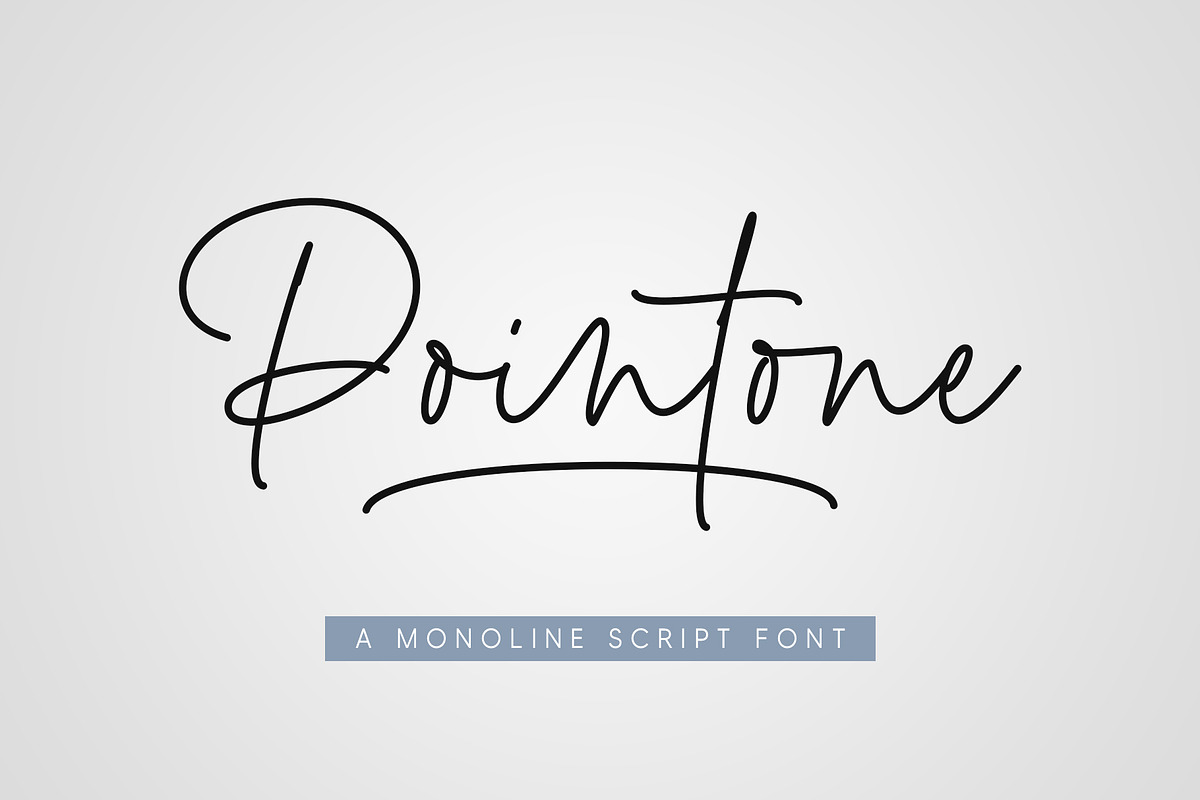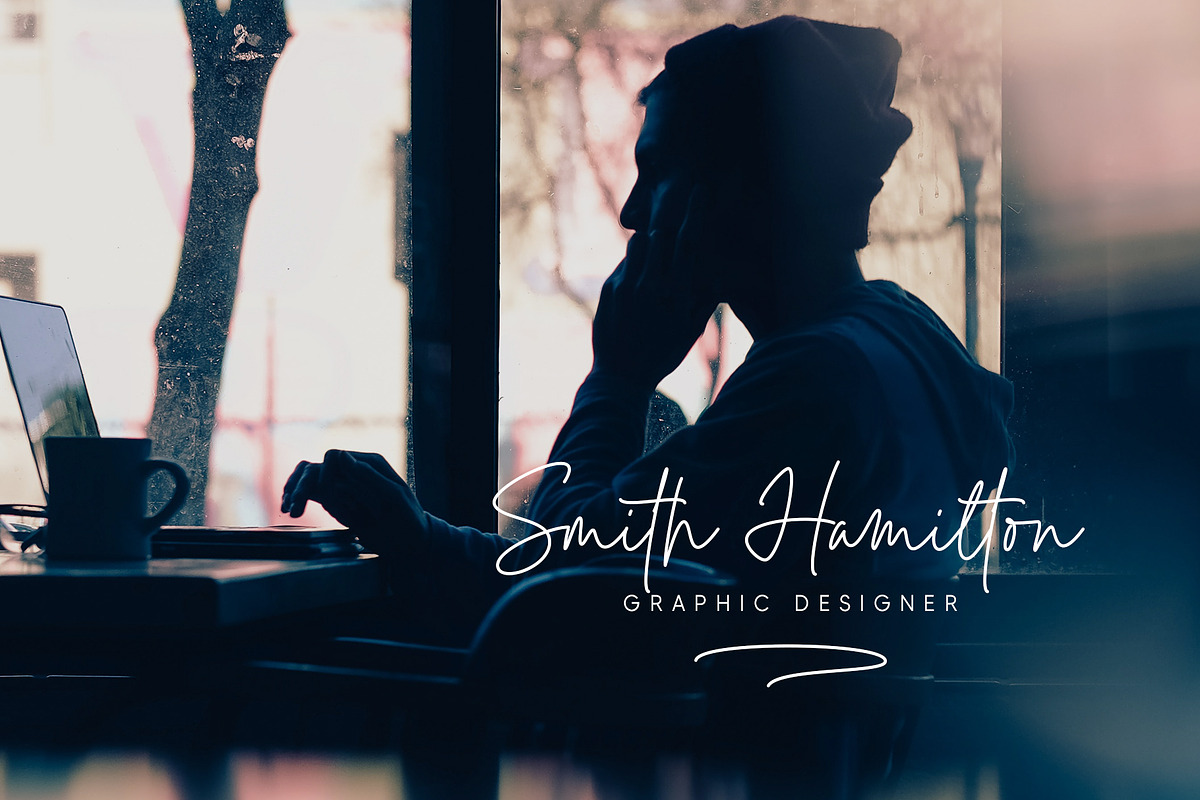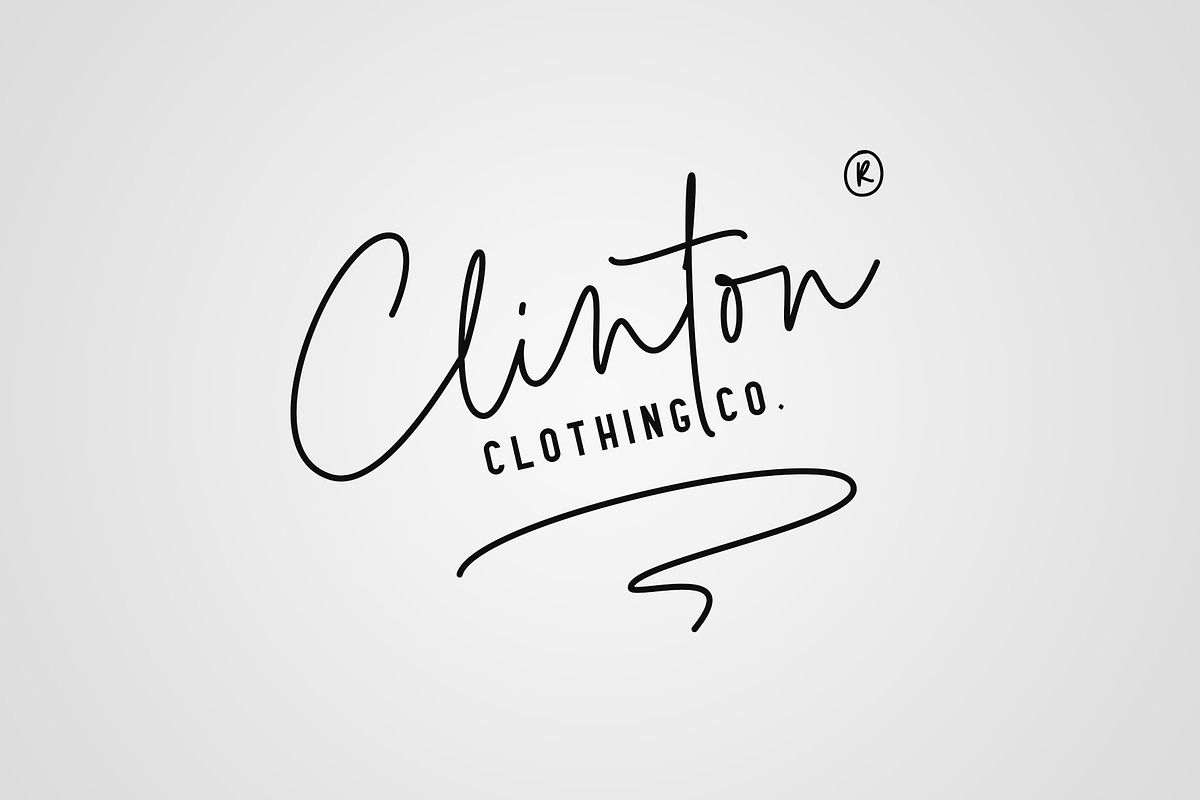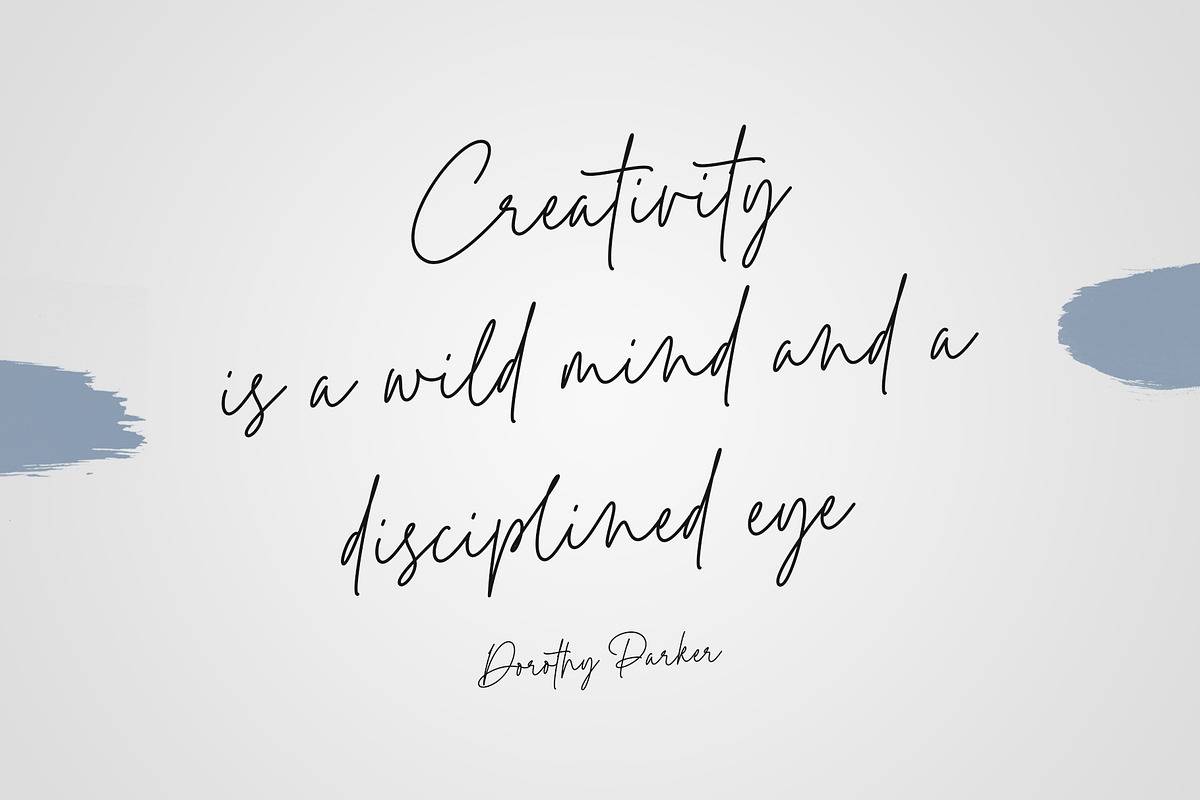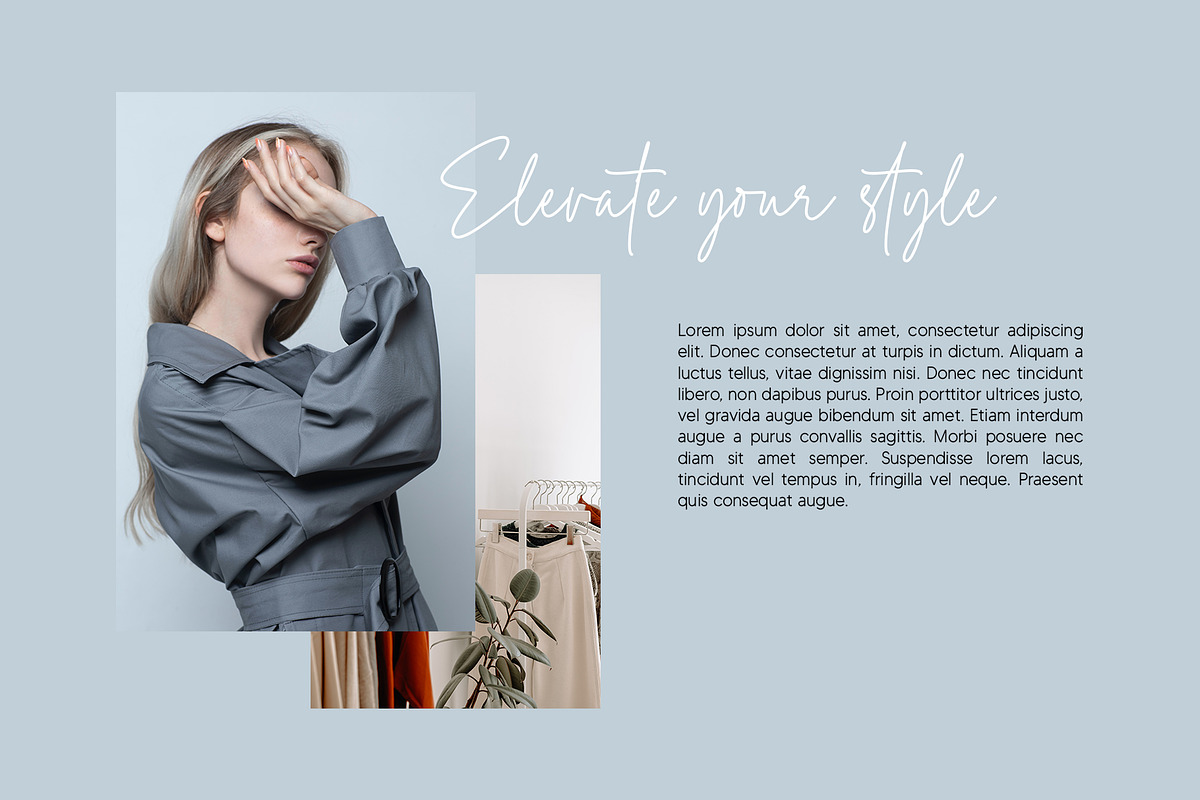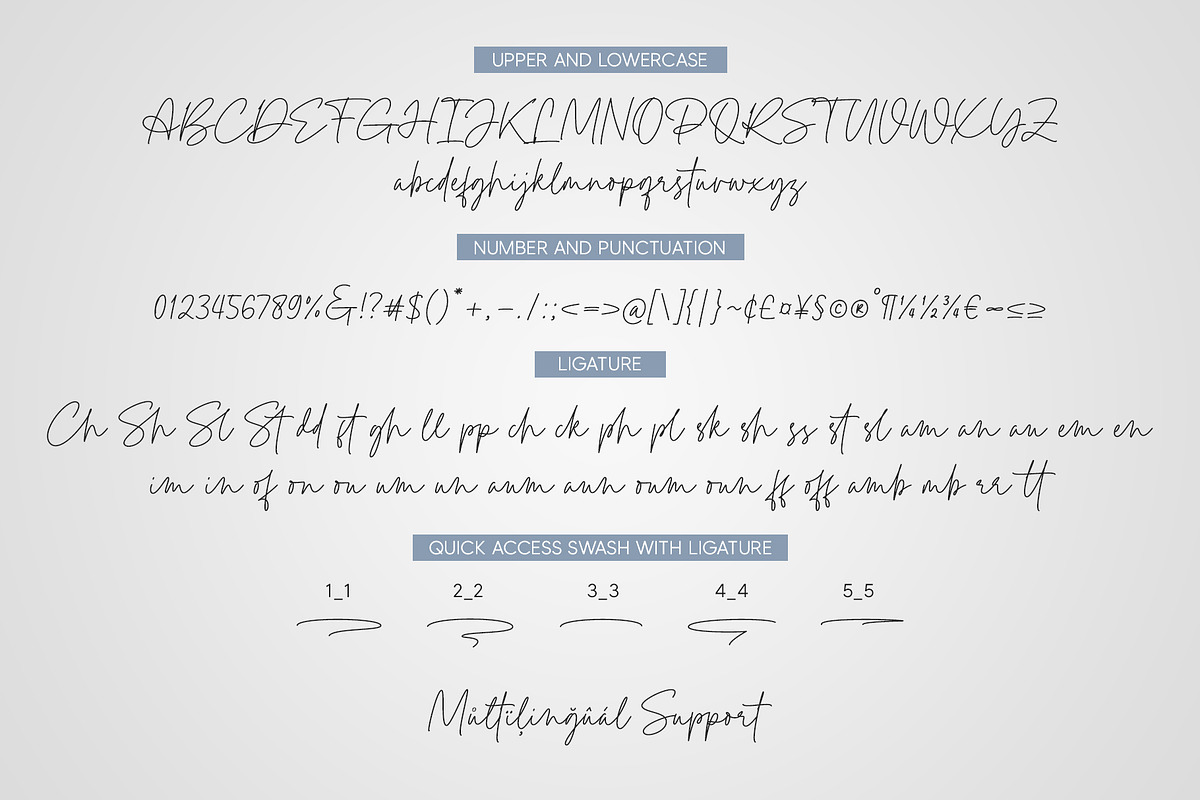
Pointone | Monoline Script
Pointone is a stylish and well balanced monoline script font. It has a clean, thin and smooth vibe and it will be a hit for any design that you want to add it to. Is perfect for many different project such as logos & branding, invitation, stationery, wedding designs, social media posts, product designs, label, photography, and more!
Quick access swash
- Add number (1-5) + underscore + number (1-5). Ex: 1_1, 2_2, 3_3, 4_4, 5_5